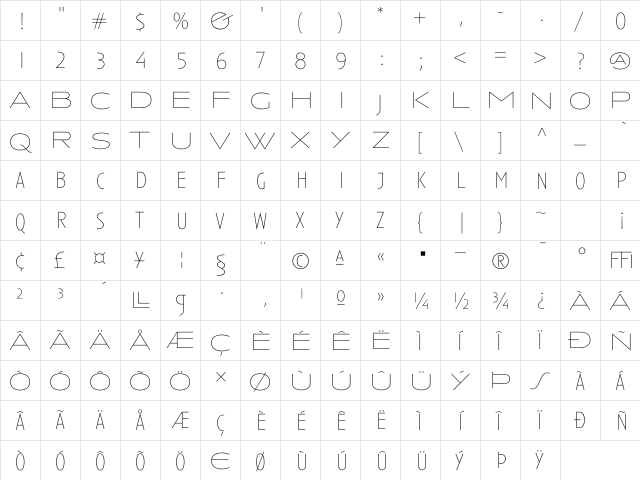
Anise Regular Font Preview
Anise Regular
Design Context for Anise Typeface
Anise is a composed and adaptable typeface that performs quietly and consistently across a wide range of design contexts.